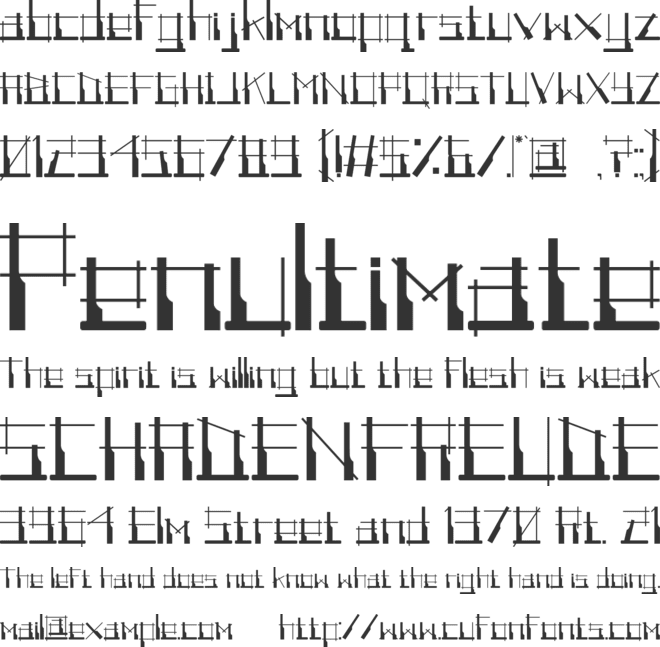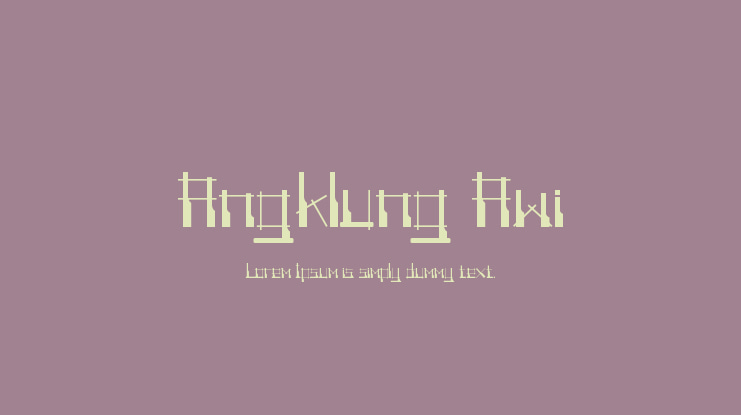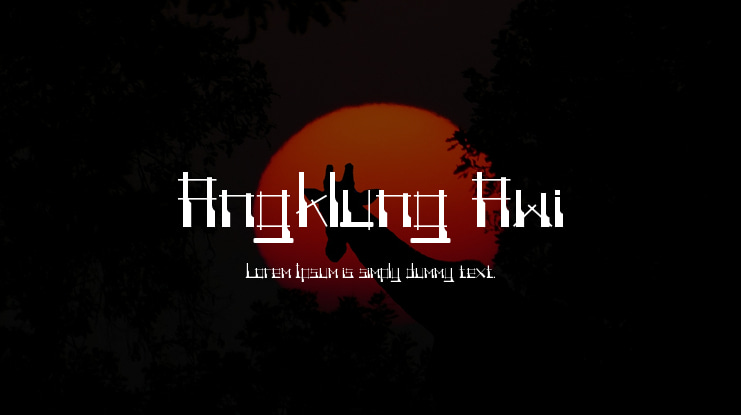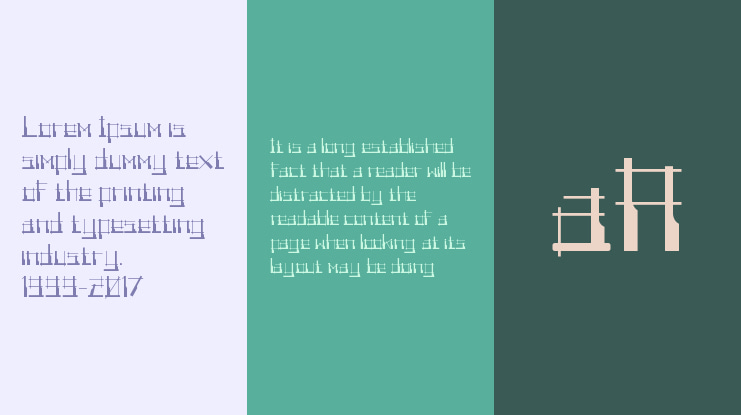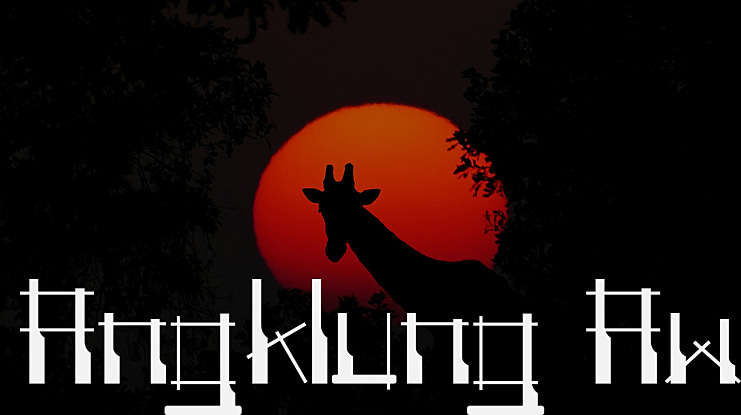
Angklung Awi Font
ANGKLUNG is a musical instrument from West Java, Indonesia. made of a varying number of bamboo (Sundanese: Awi) tubes to make a melodies.